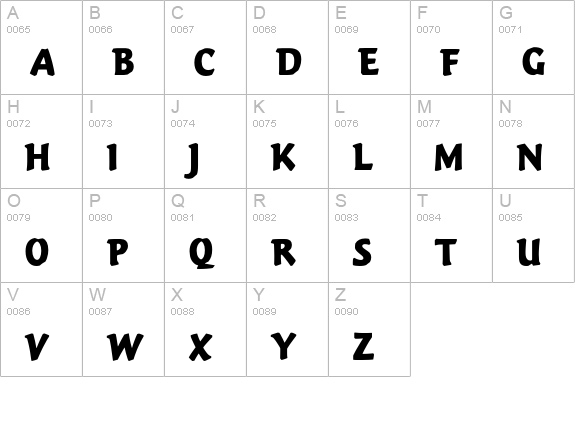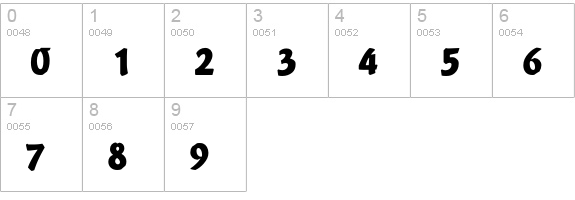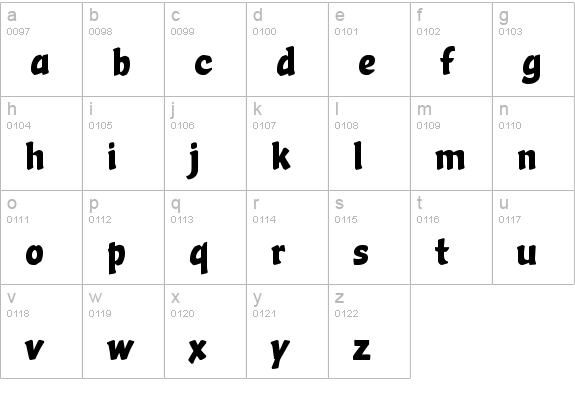
VarioEF-Regular Font Details
VarioEF-Regular is the standard, neutral variant in the VarioEF typeface family \xE2\x80\x94 well suited to general body text, paragraphs, and standard typographic work.
VarioEF-Regular font is a versatile and stylish typeface that is sure to make a statement. With its clean lines and modern aesthetic, this font is perfect for a wide range of design projects. Whether you're creating a logo, designing a website, or crafting a flyer, VarioEF-Regular font will add a touch of elegance and professionalism to your work. What makes VarioEF-Regular font even more appealing is that it is available for free. That's right, you can download this amazing font at absolutely no cost from FontsMarket.com. This means that you can enhance your designs without breaking the bank. Say goodbye to expensive font licenses and hello to creativity without limits. Not only is VarioEF-Regular font free, but it also offers a wide range of weights and styles, allowing you to experiment and find the perfect fit for your project. From light and airy to bold and impactful, this font has it all. Its versatility ensures that it can be used for a variety of design purposes, making it a valuable asset in your font collection. With its legibility and eye-catching appeal, VarioEF-Regular font is sure to grab attention and leave a lasting impression. Its timeless design ensures that it will remain a go-to choice for designers and creatives for years to come. So why wait? Download VarioEF-Regular font for free today at FontsMarket.com and elevate your designs to new heights.